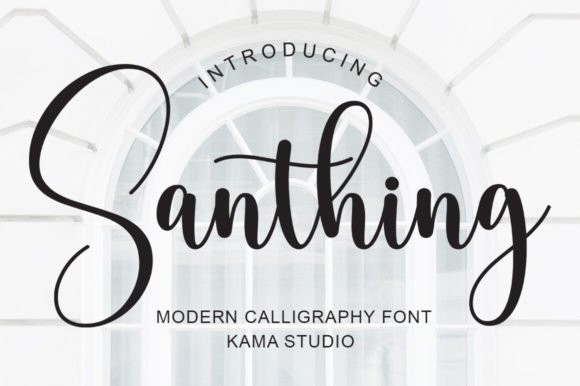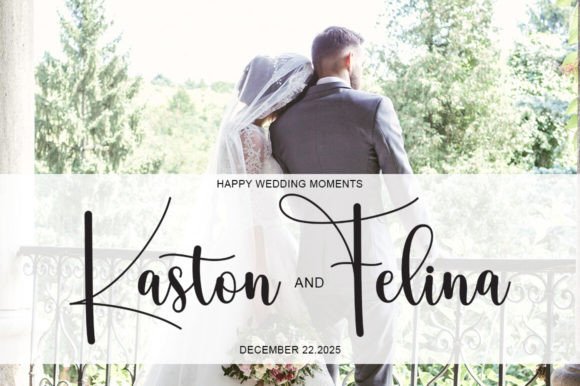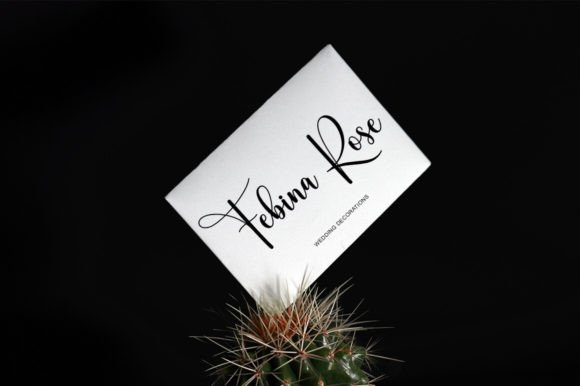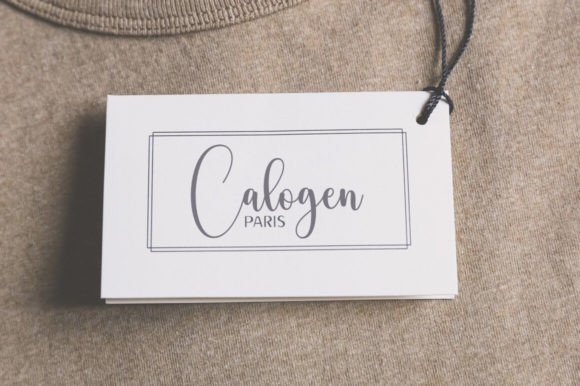
Santhing Font
Introducing Santhing font, a handwriting font with a sweet look and flourishing character. Santhing can be used for various types of design needs such as branding materials, social media, quotes, invitation, business cards, movie covers and more.